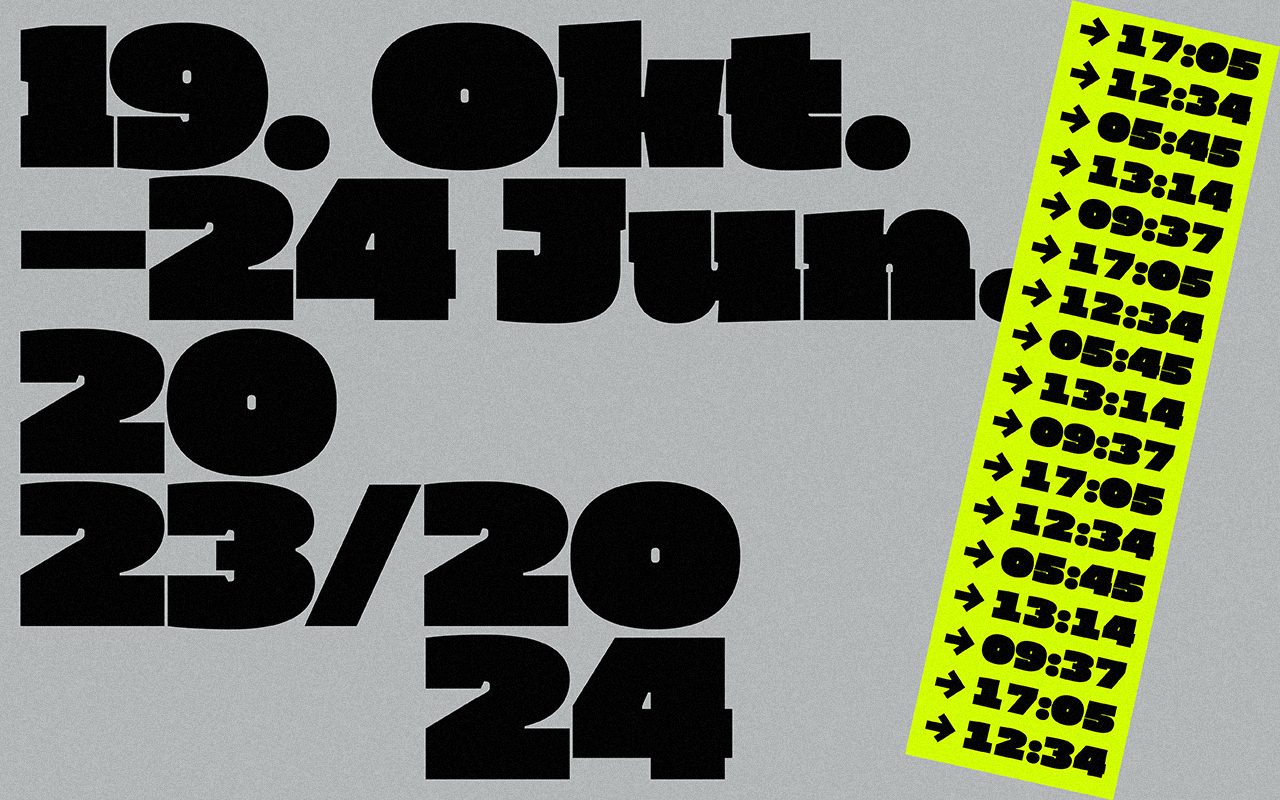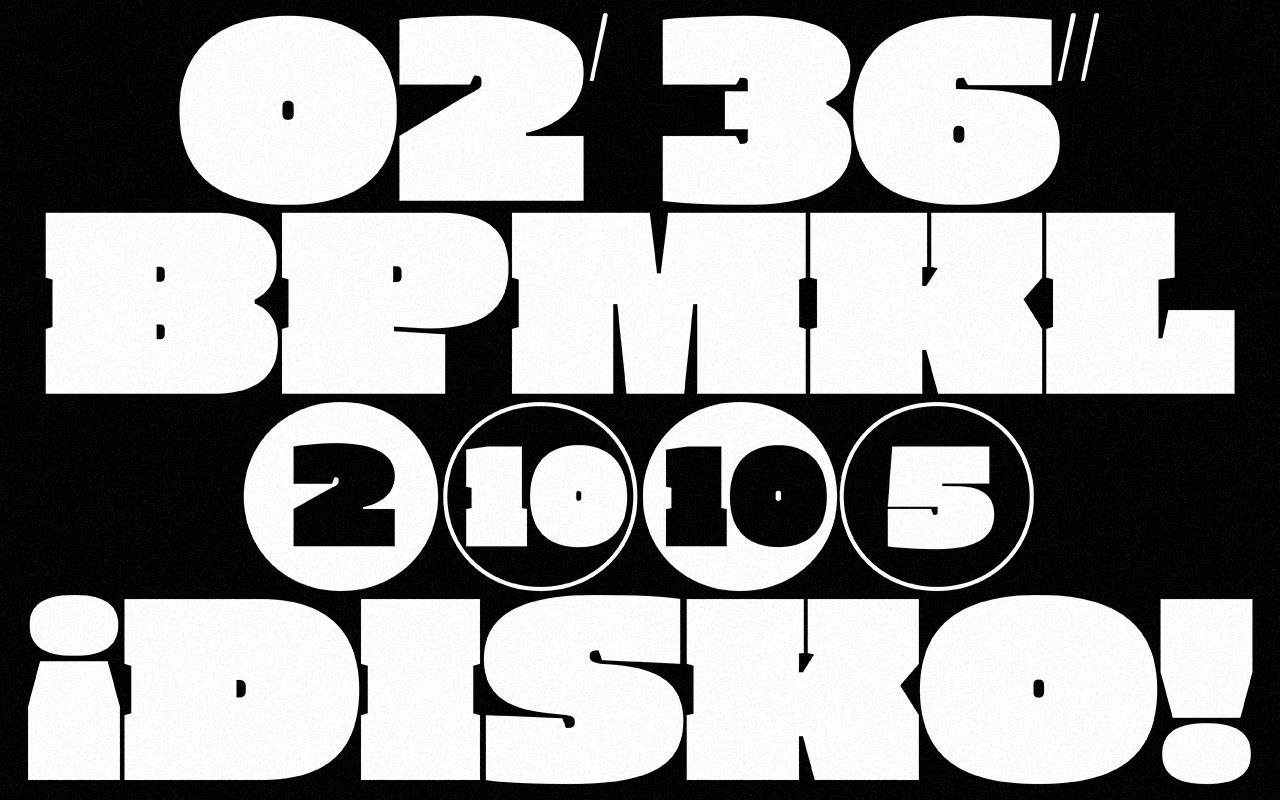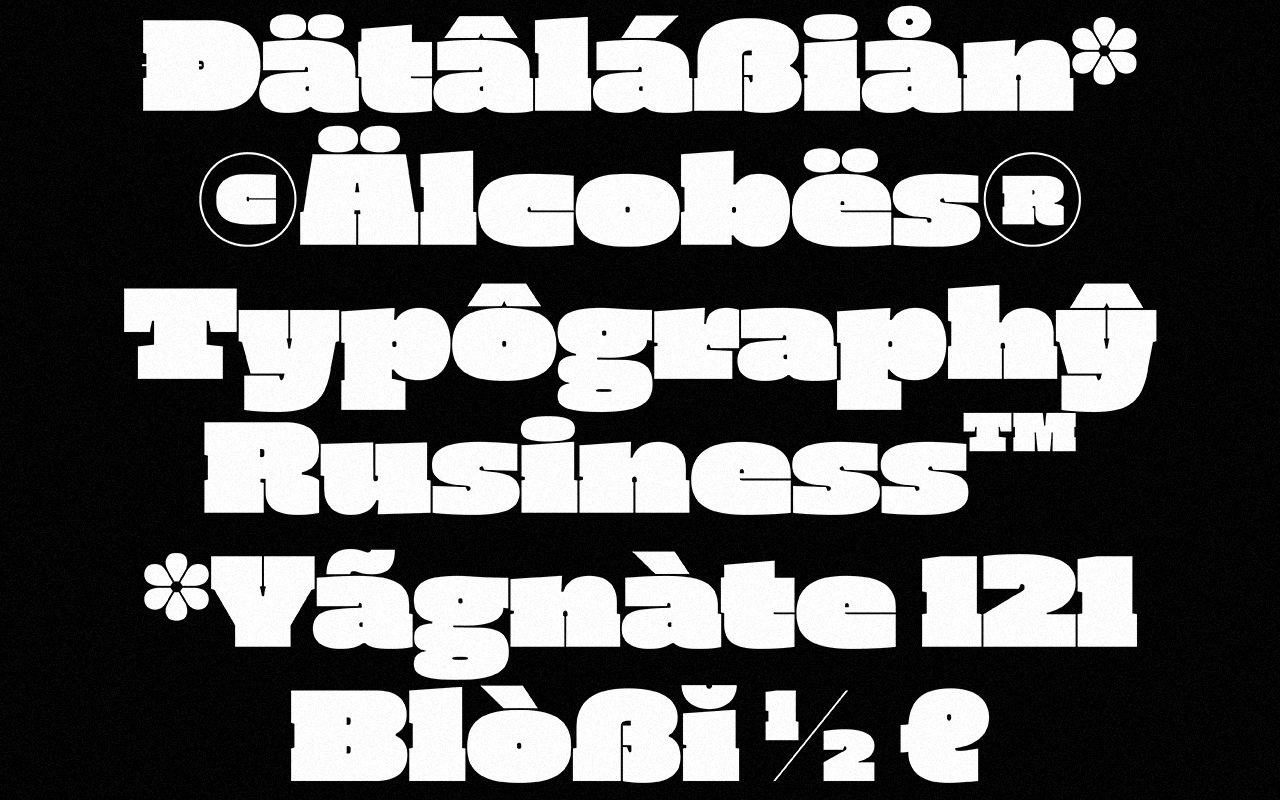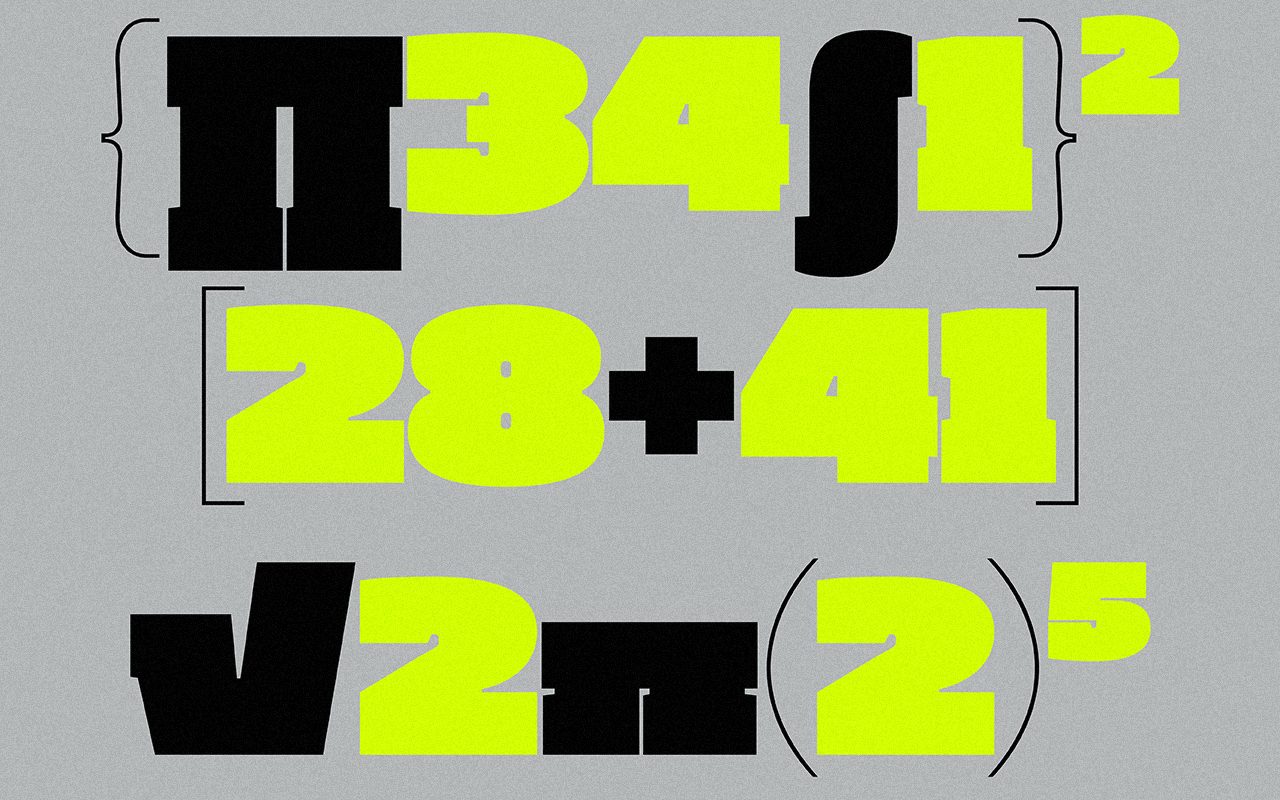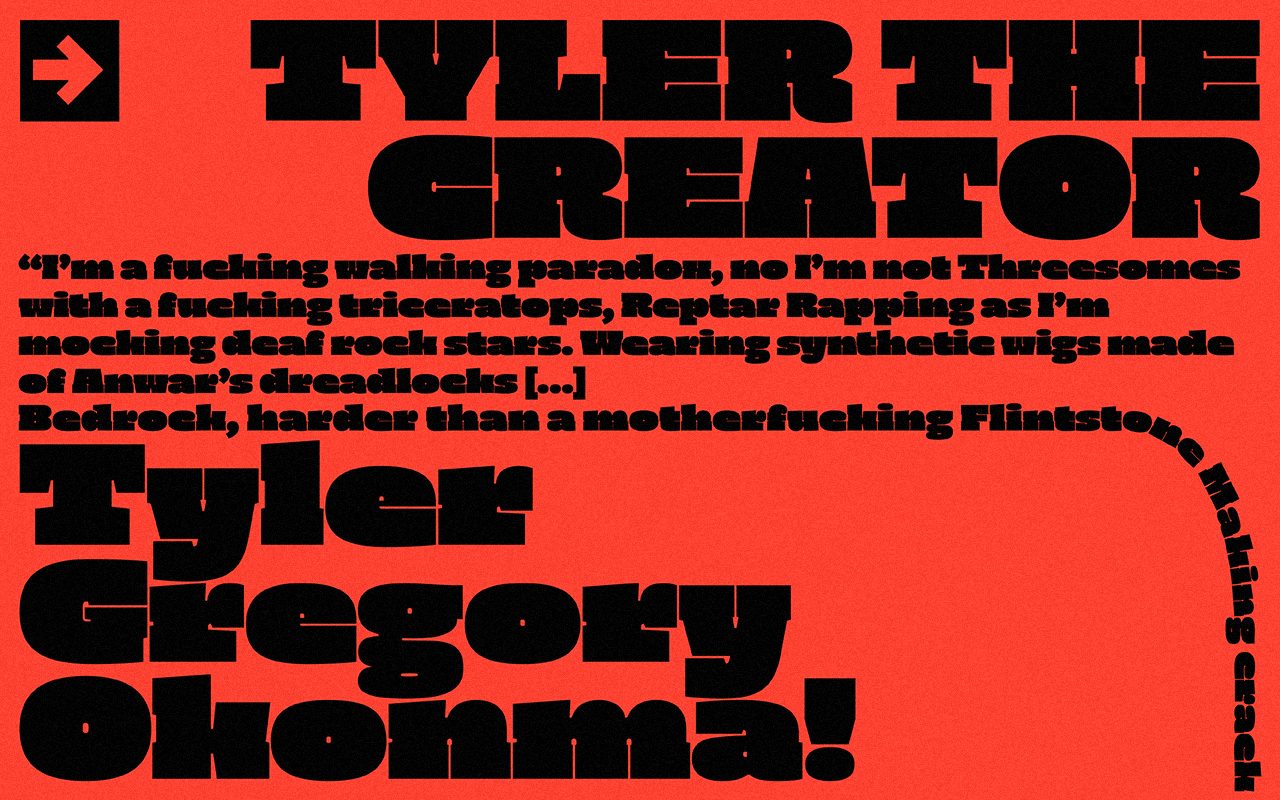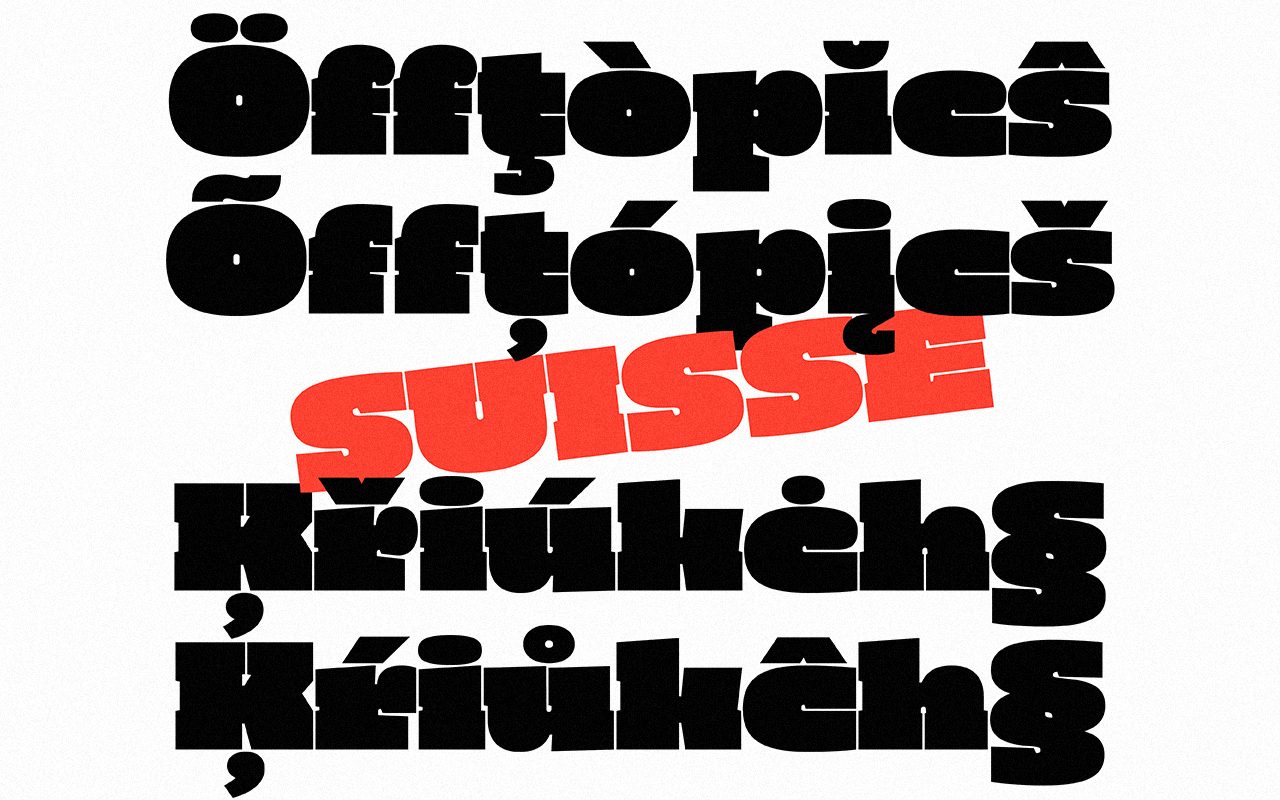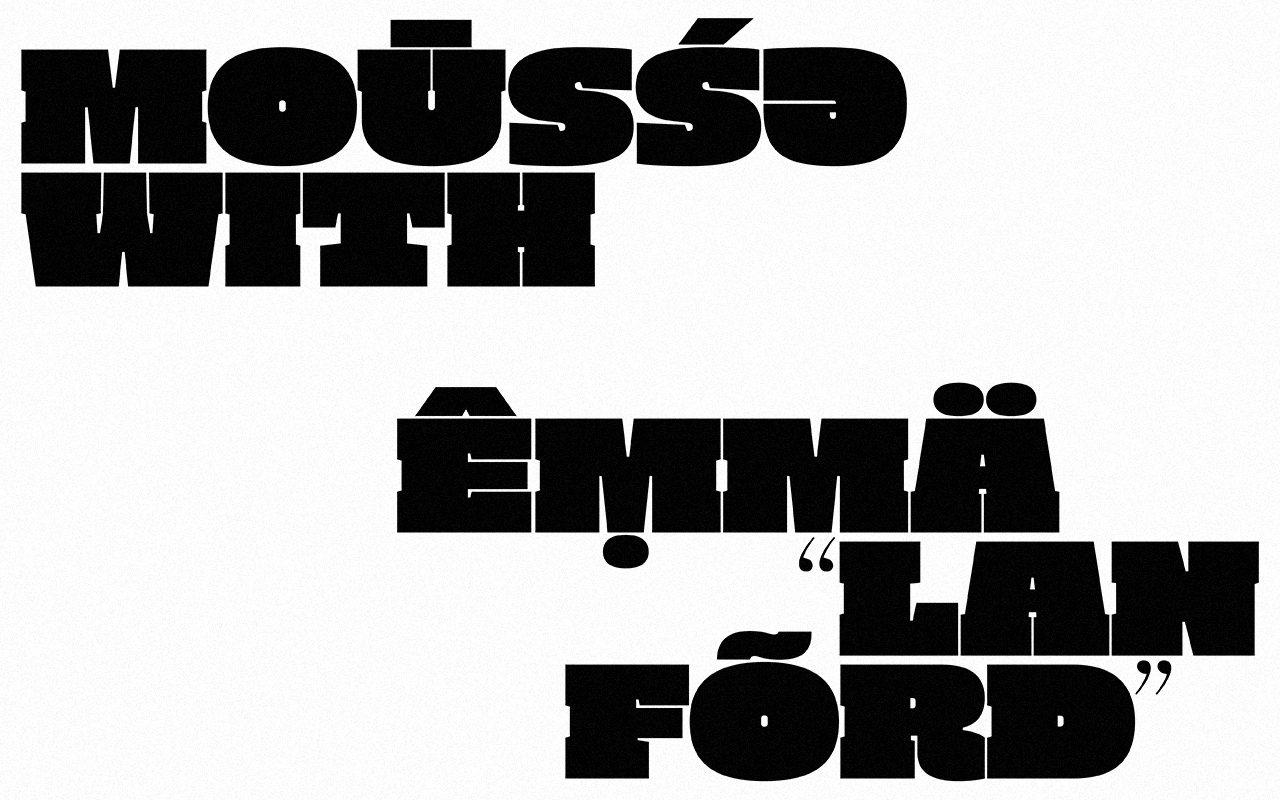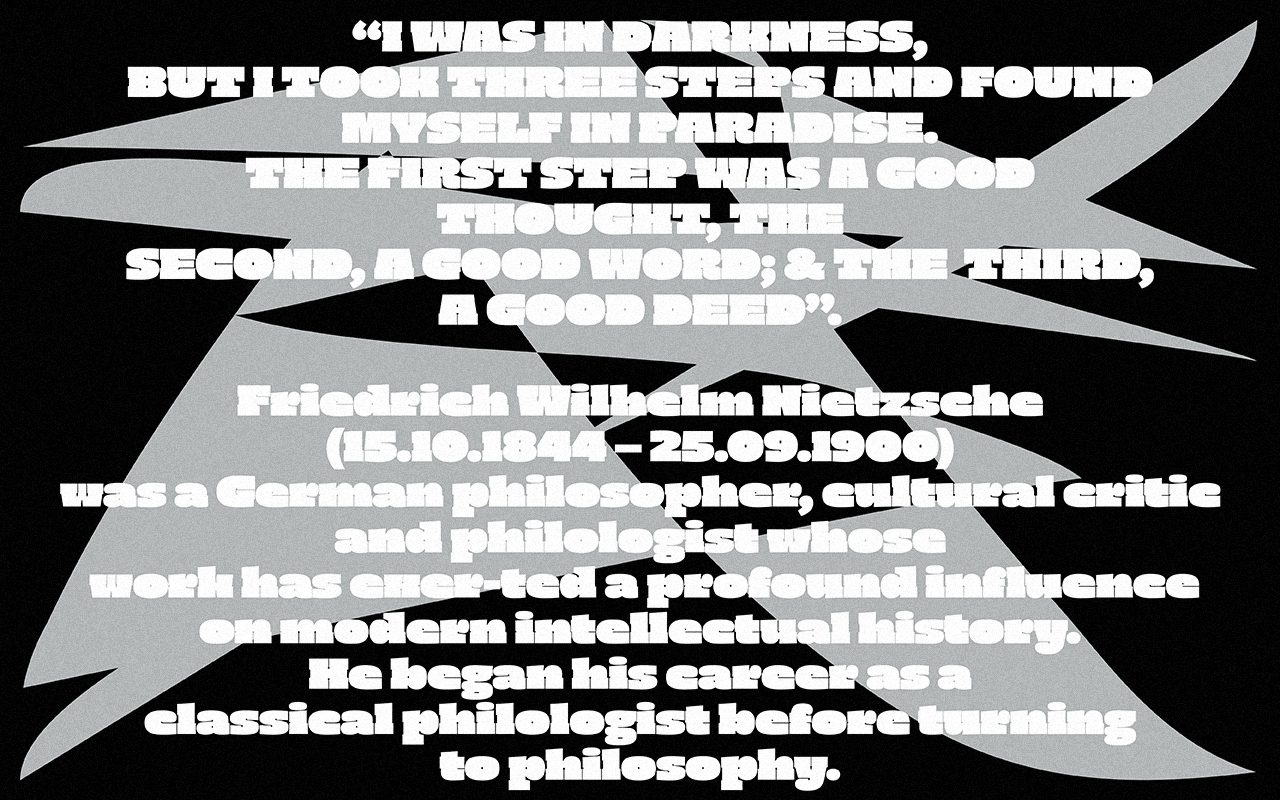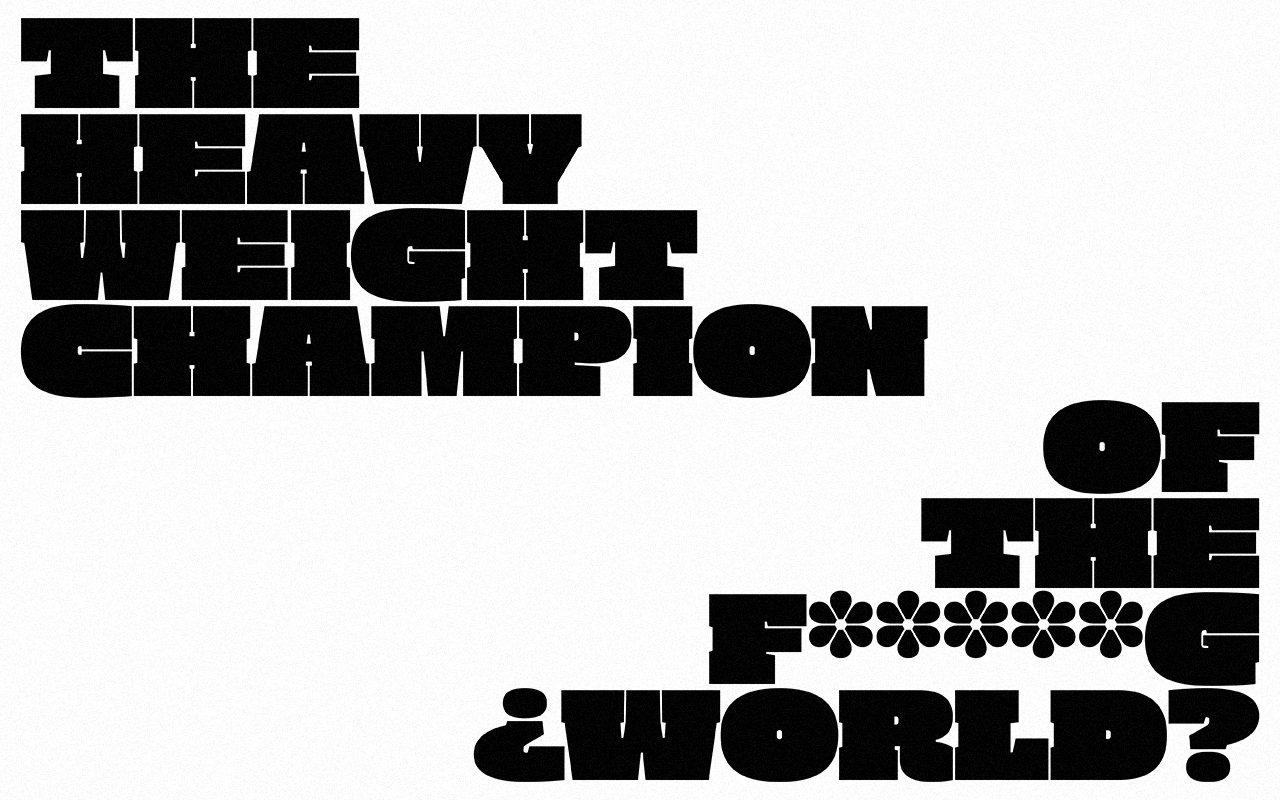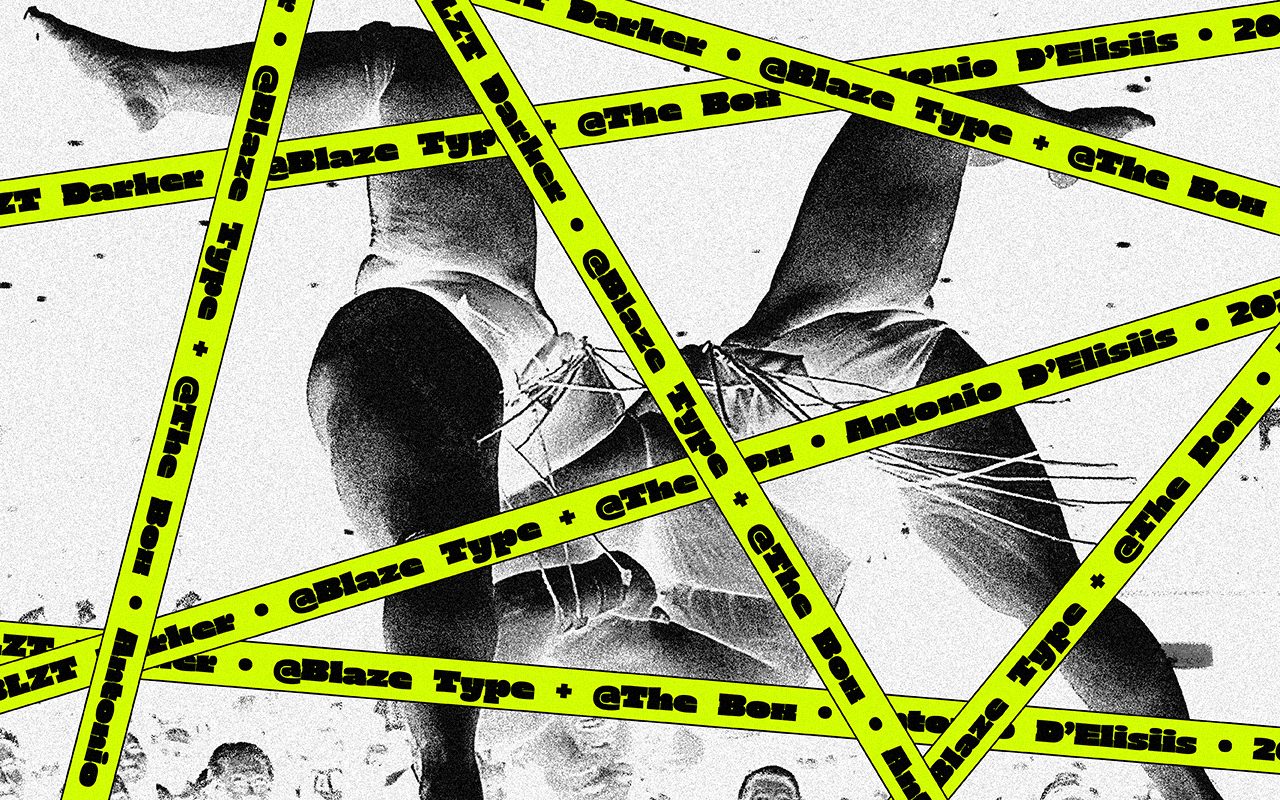
Darker
Darker Script is a conceptual super heavy slab display font. Its first design was drafted during Antonio's studies at ECAL, Switzerland. Due to its sheer powerfulness, this heavy slab display font is extremely useful when used to emphasis titles and small piece of text alike.
The whole concept of Darker Script is to find a sweet balance between the heaviest glyph possible while retaining enough light in the counter shapes to remain legible. As such, the glyph shapes have been enhanced and drawn with extremely black forms, heavy slabs and subsequently carved with small white &light interventions which make the letters readable in the “darkness”.
Due to its super small counter shapes, Darker Script has a very tight spacing. This creates a playful modular system made by the use of combinations of shapes. Due to short ascenders and descenders the font allows the user to make very compact headline and titling with a powerful visual.
This font family will make wonder in any layout looking to have a powerful impact, strong visual language through type layout. It will be an amazing asset to use on headlines and titles alike across any mediums looking to be remembered.
Antonio Delisiis